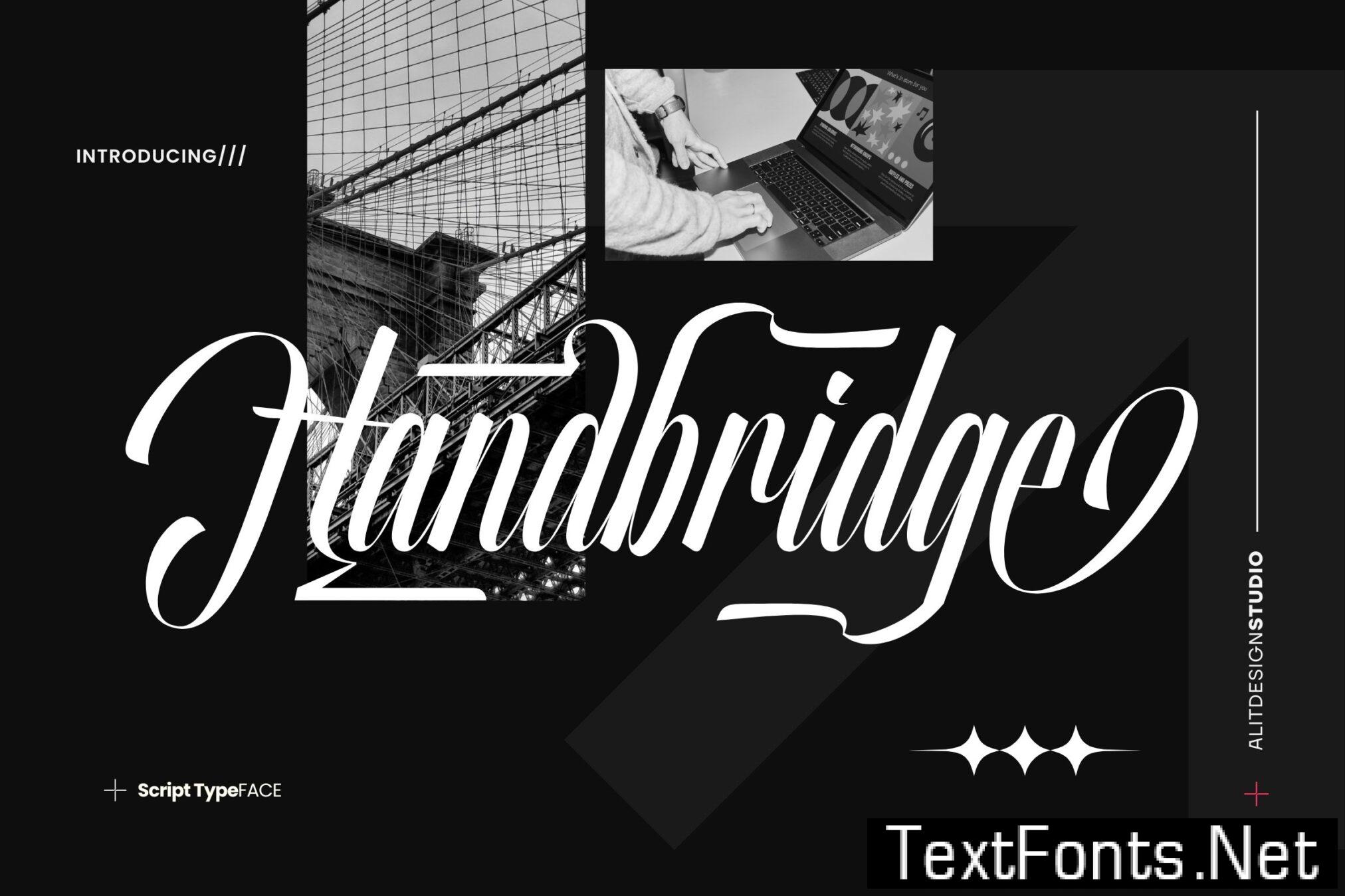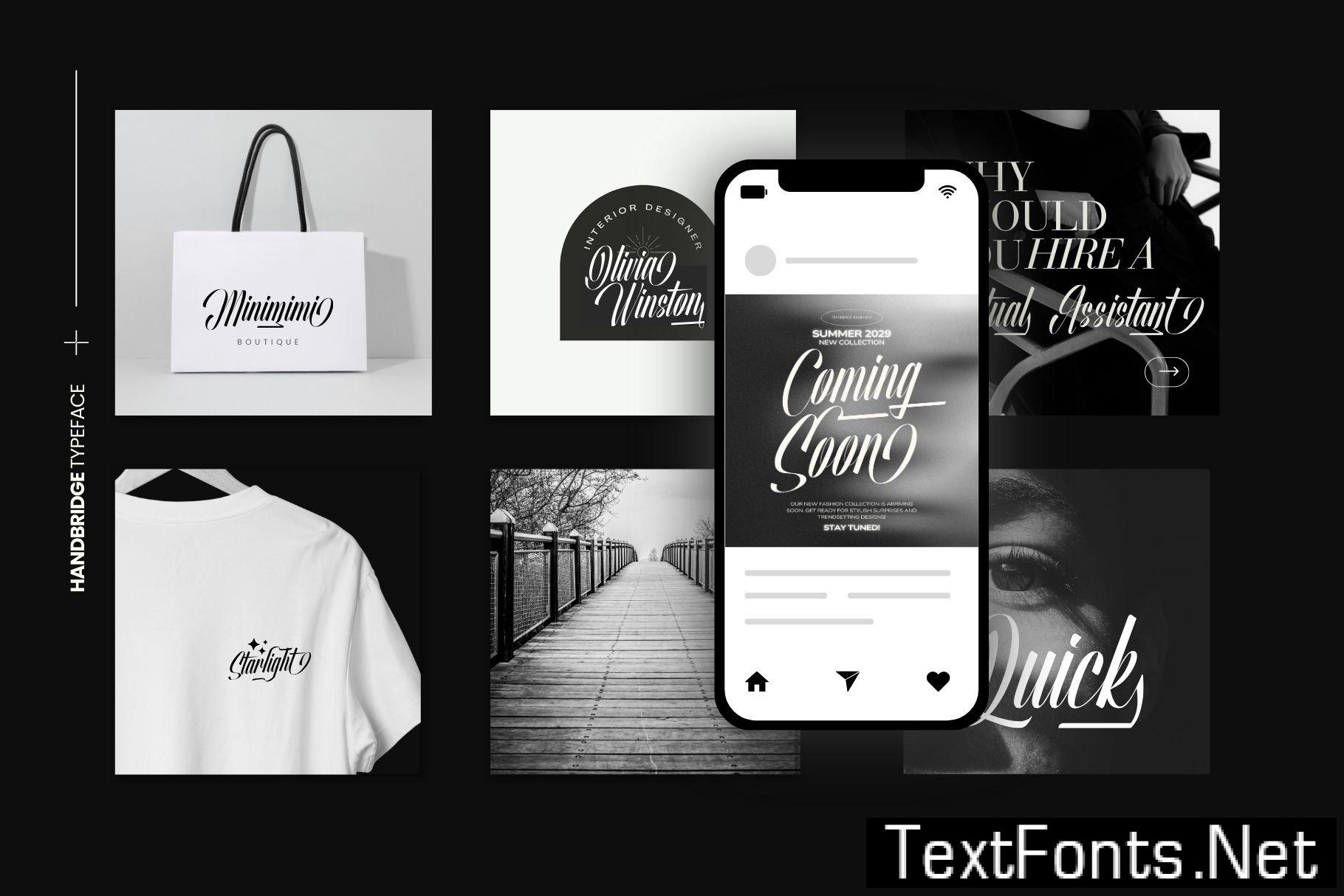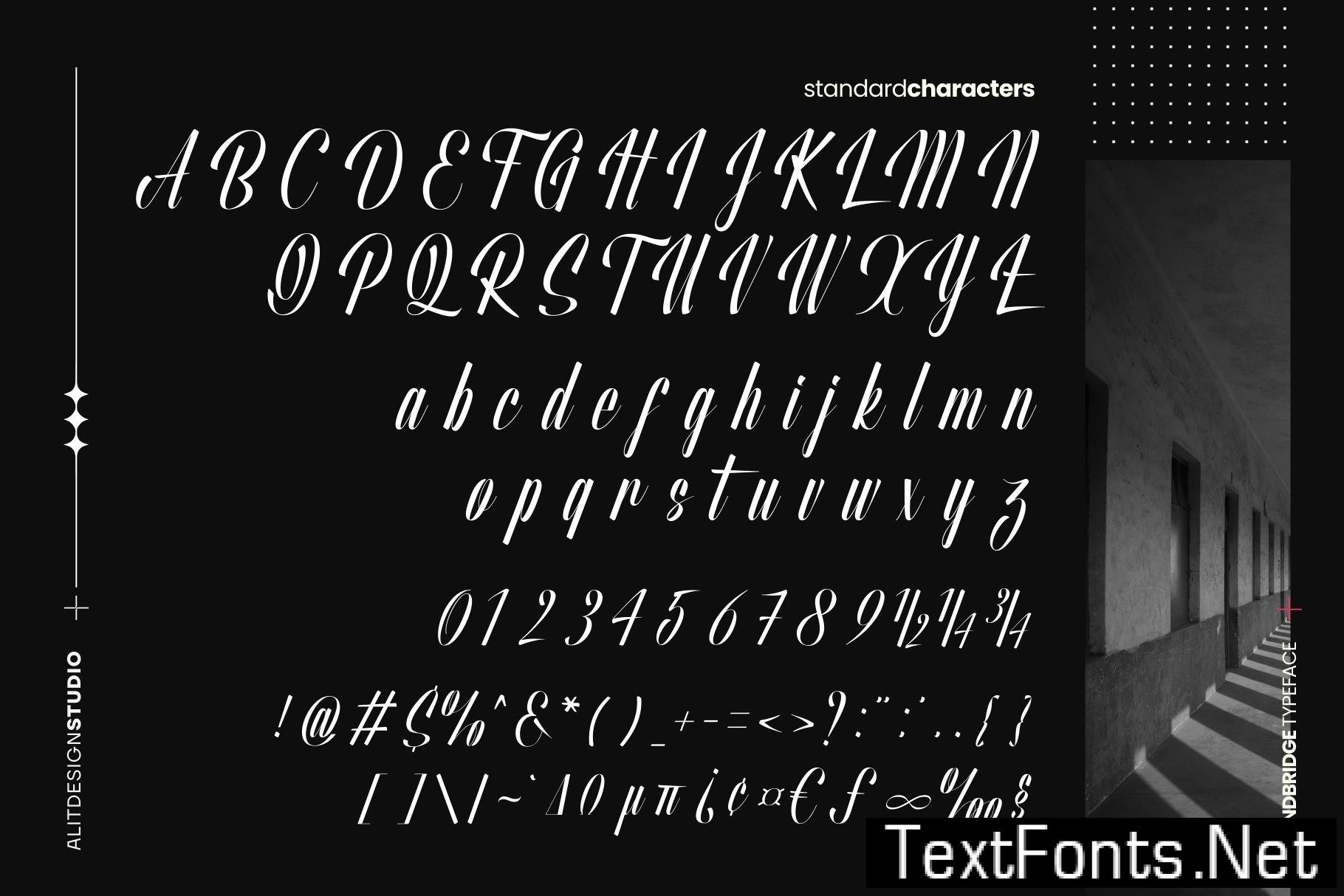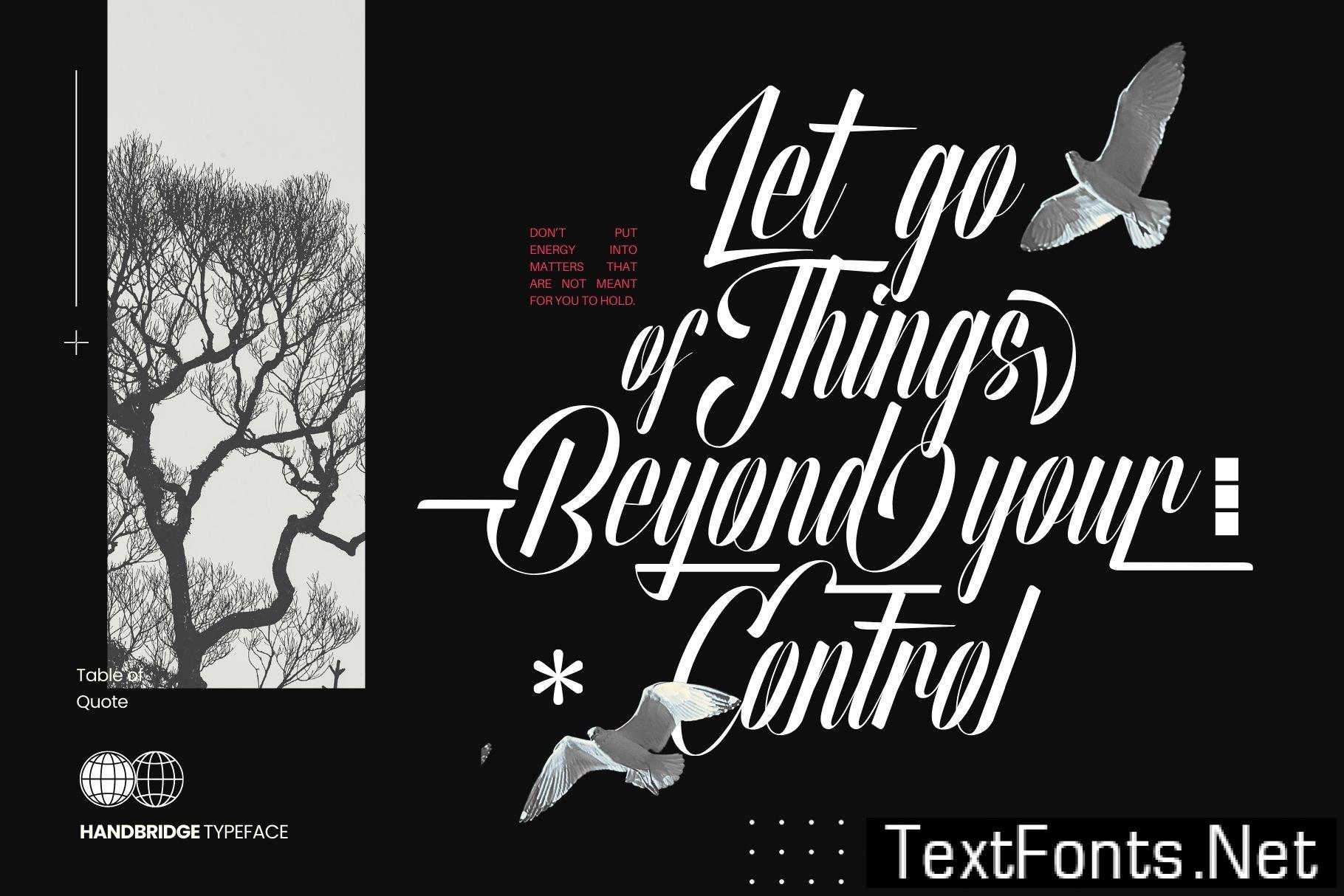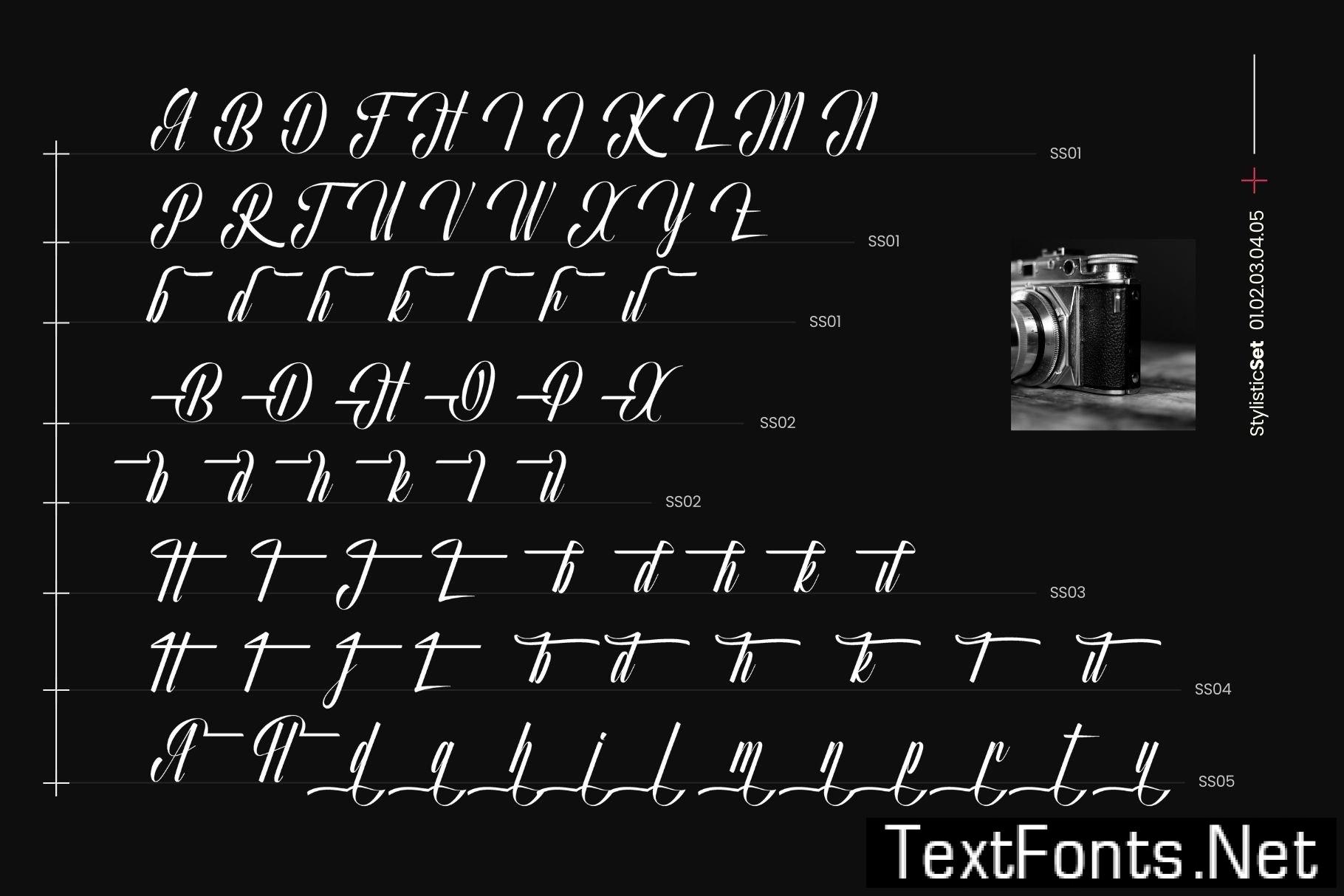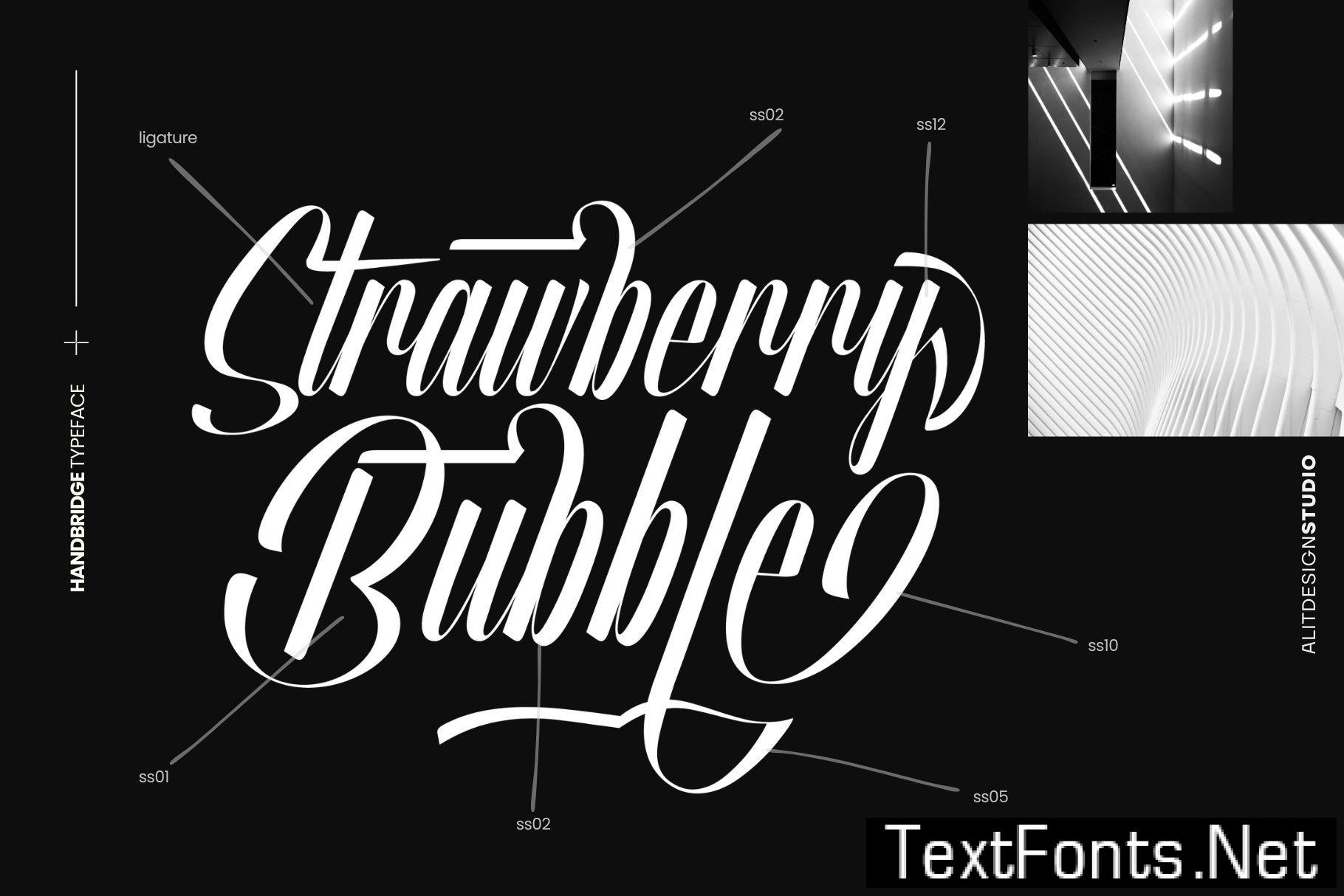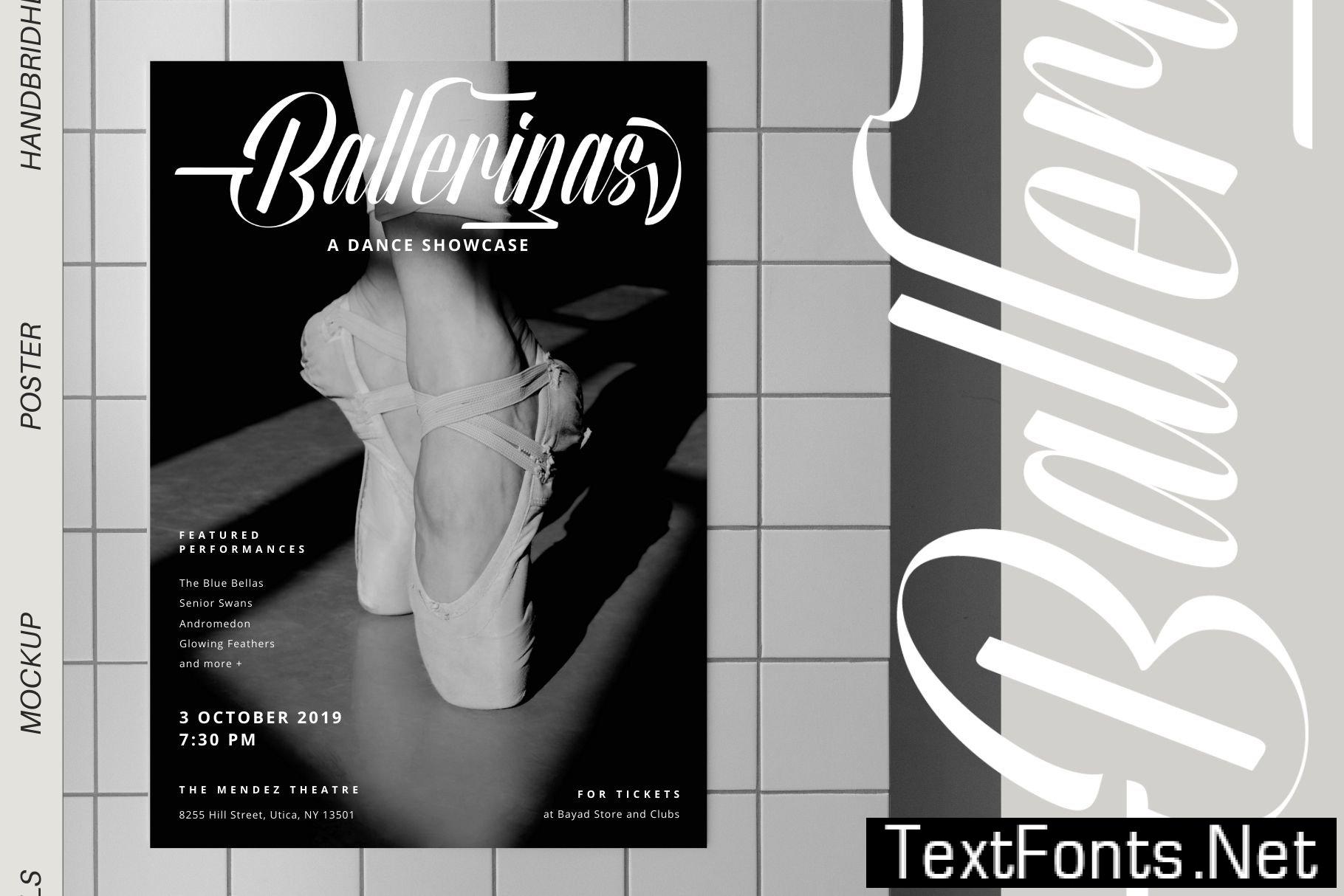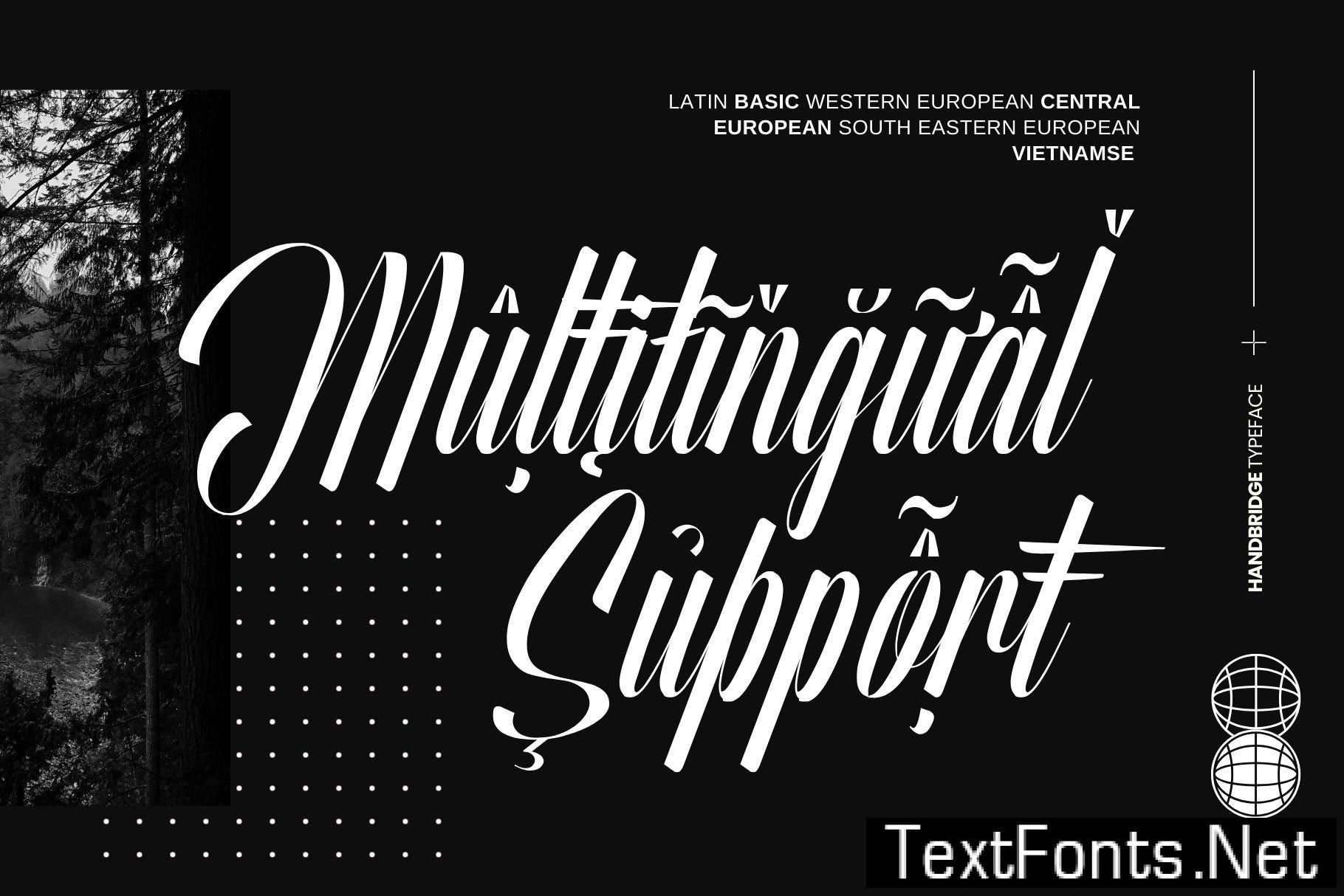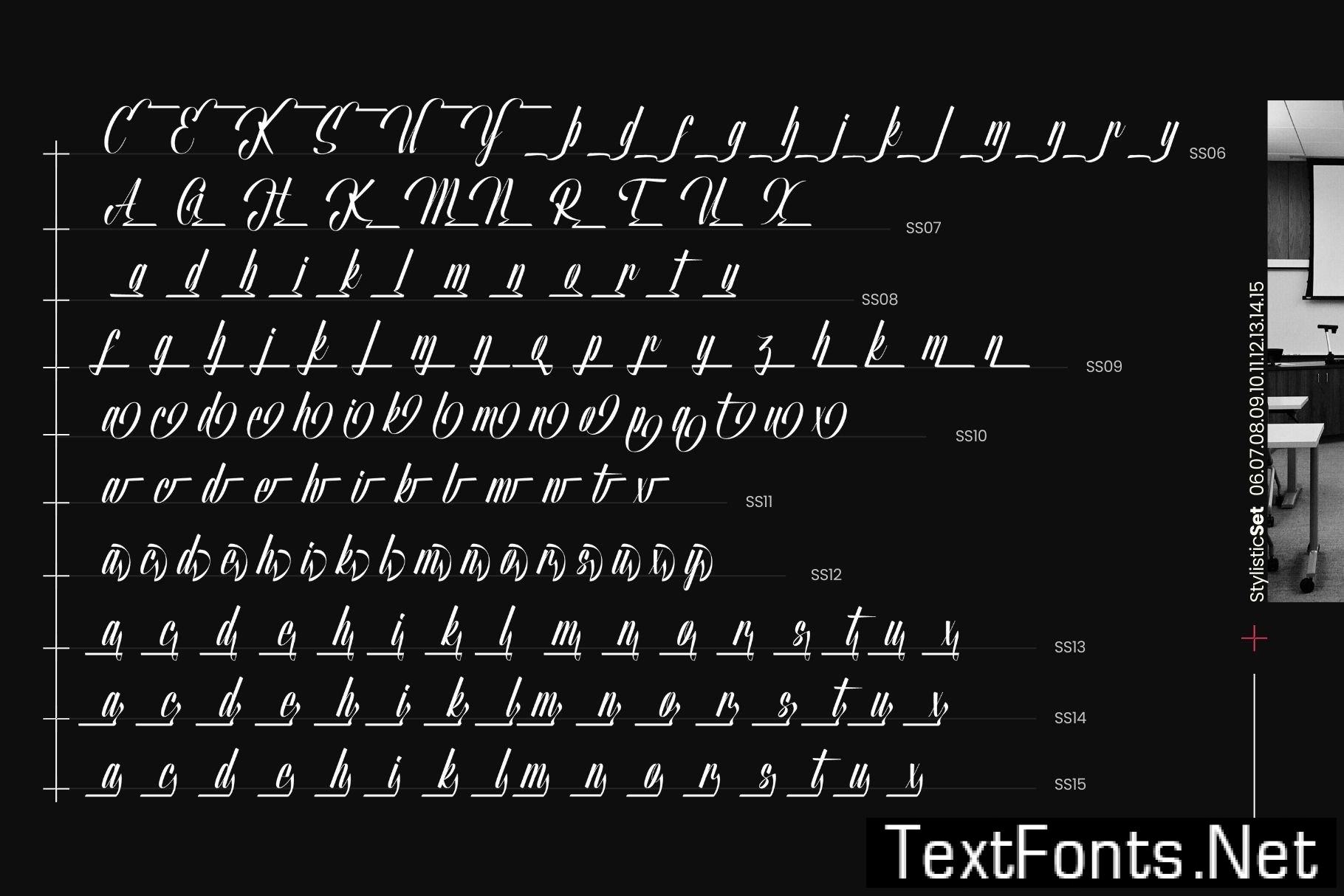
**Handbird Script Font**
Introducing Handbird Script Font, a dynamic and fierce script that takes your design projects to new heights. This font is crafted for those who seek speed, fluidity, and a touch of elegance in their typography.
**Key Features:**
– **Fierce Script:** Exude boldness and confidence with every letter.
– **Speedy:** Designed for a fast-paced world, Handbird Script adds a sense of motion and urgency to your text.
– **Dynamic:** Infuse your projects with energy and vitality, making your message stand out.
– **Ligatures:** Seamlessly connect letters for a smooth and natural handwriting effect.
– **Swash:** Enhance your design with elegant swashes that add flair and sophistication.
– **722 Characters:** A comprehensive set of characters to cover all your typographic needs, including multilingual support and special symbols.
Whether you’re creating eye-catching headlines, stunning logos, or captivating social media posts, Handbird Script Font delivers the impact and versatility you need. Embrace the power of dynamic typography with Handbird Script, where speed meets style.spacing: Normal